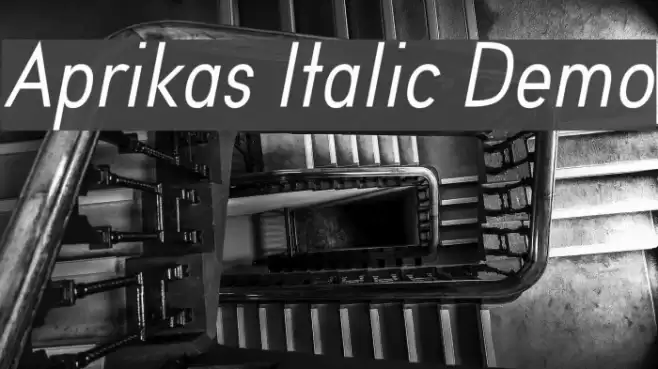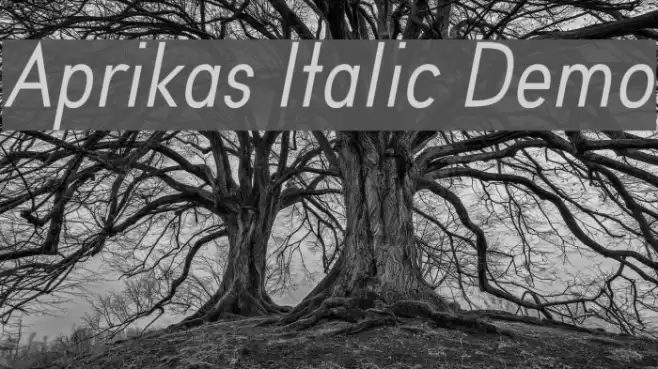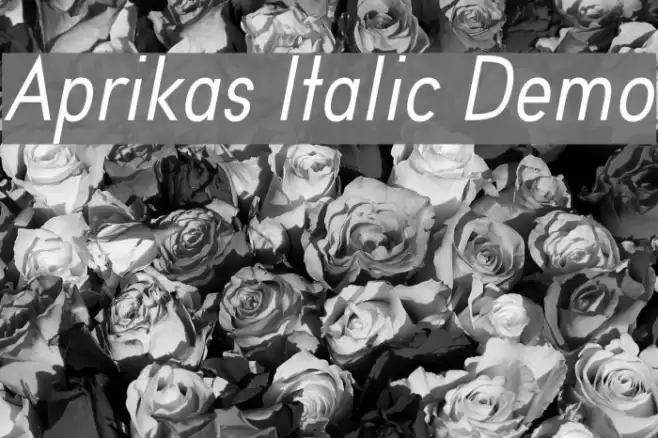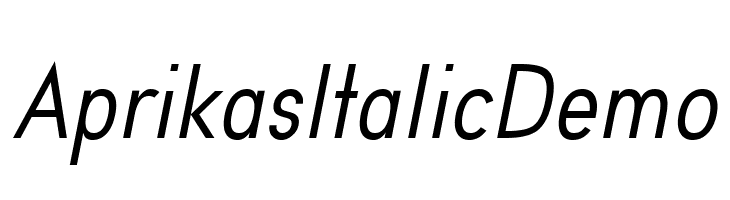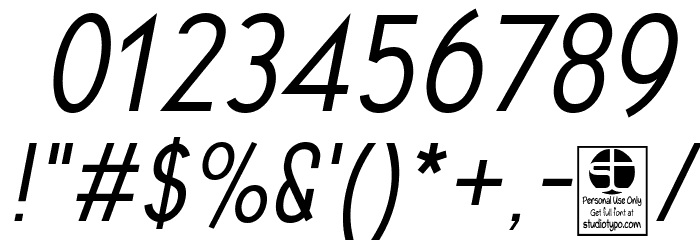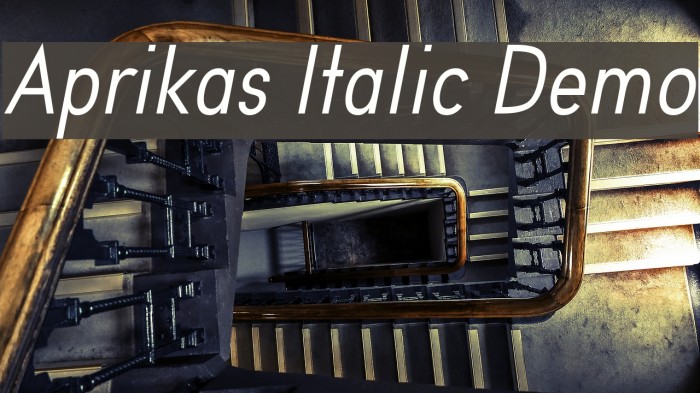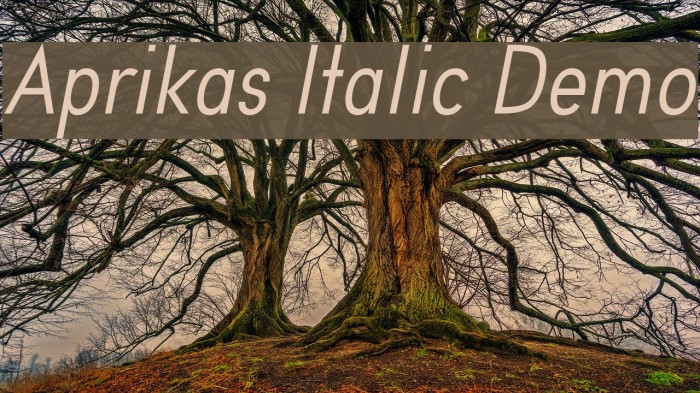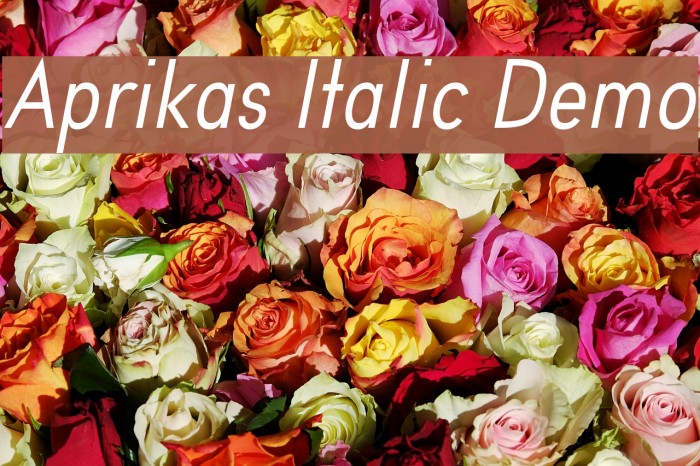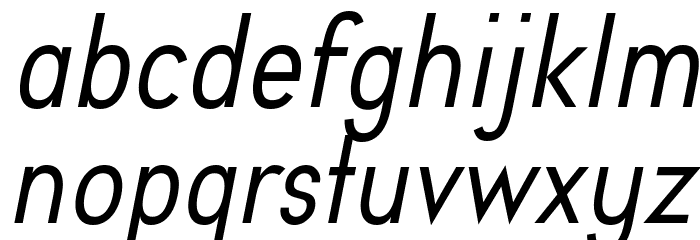
Aprikas Italic Demo Font
Aprikas Italic Demo Description
This font features a sleek, italicized style with a modern and clean appearance. The characters are slightly slanted, giving a sense of motion and elegance. The uppercase and lowercase letters are well-proportioned, with consistent stroke widths that maintain readability. The numerals are clear and distinct, matching the overall aesthetic of the alphabet. Special characters are included, maintaining the same style and ensuring versatility in various applications. The font's design is suitable for both digital and print media, offering a professional yet approachable look.
A modern, italicized font with a clean and elegant style from Uncategorized fonts.